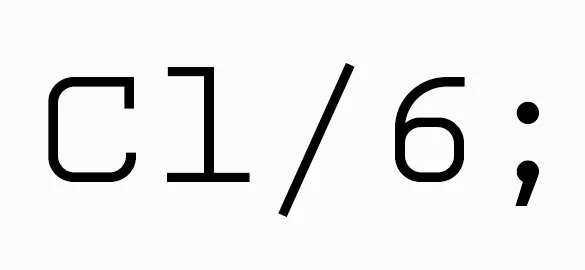
Designing Kettler
Named in tribute to designer Howard ‘Bud’ Kettler whose ubiquitous Courier graces computers the world over, Kettler is a simple monospaced font of two weights. Like its mentor, Kettler is a twelve-pitch monospaced font – 12 characters fit within 1 inch at 10 point size. But before visions of Steelcase desks, IBM Selectric typewriters, and 12-inch bubble monitors take you away, remember that Kettler is a decidedly 21st century font.
Built from a basic set of repeated ovals and stems, Kettler is a subtle blend of utilitarian slab serifs and modern curves. Allowing ample room for the exchange between black and white space, the slabs anchor the font to the baseline while the oval curves facilitate eye movement from one glyph to the next. The character fit is regular enough for clean page color and just wide enough to avoid the unseemly letter crashing common to monospaced fonts. As such, Kettler is ideal for tabular information (we’ve been using it for client invoicing since its release) but also equally comfortable pulling display and headline duty if the task requires.